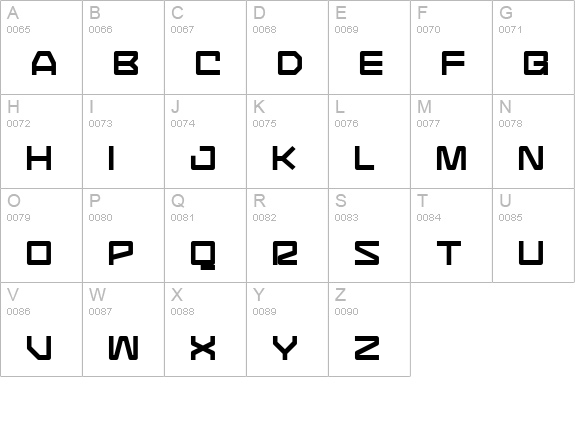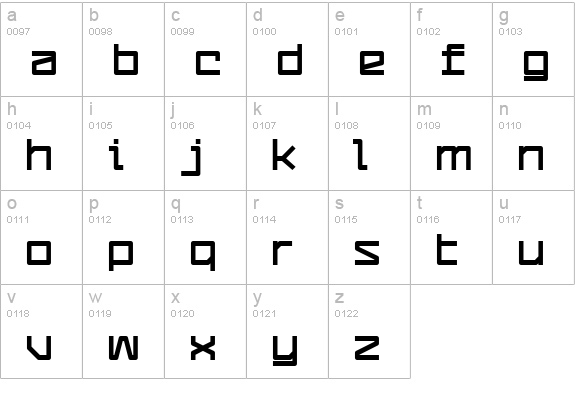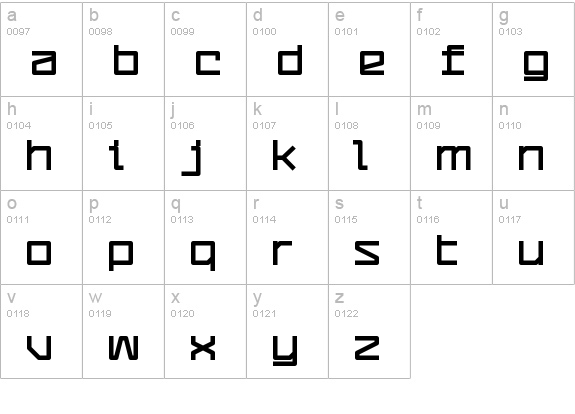
CommunityService Black Font Details
CommunityService Black is a maximum-weight, dramatic variant in the CommunityService typeface family \xE2\x80\x94 well suited to maximum-impact headlines, posters, and packaging.